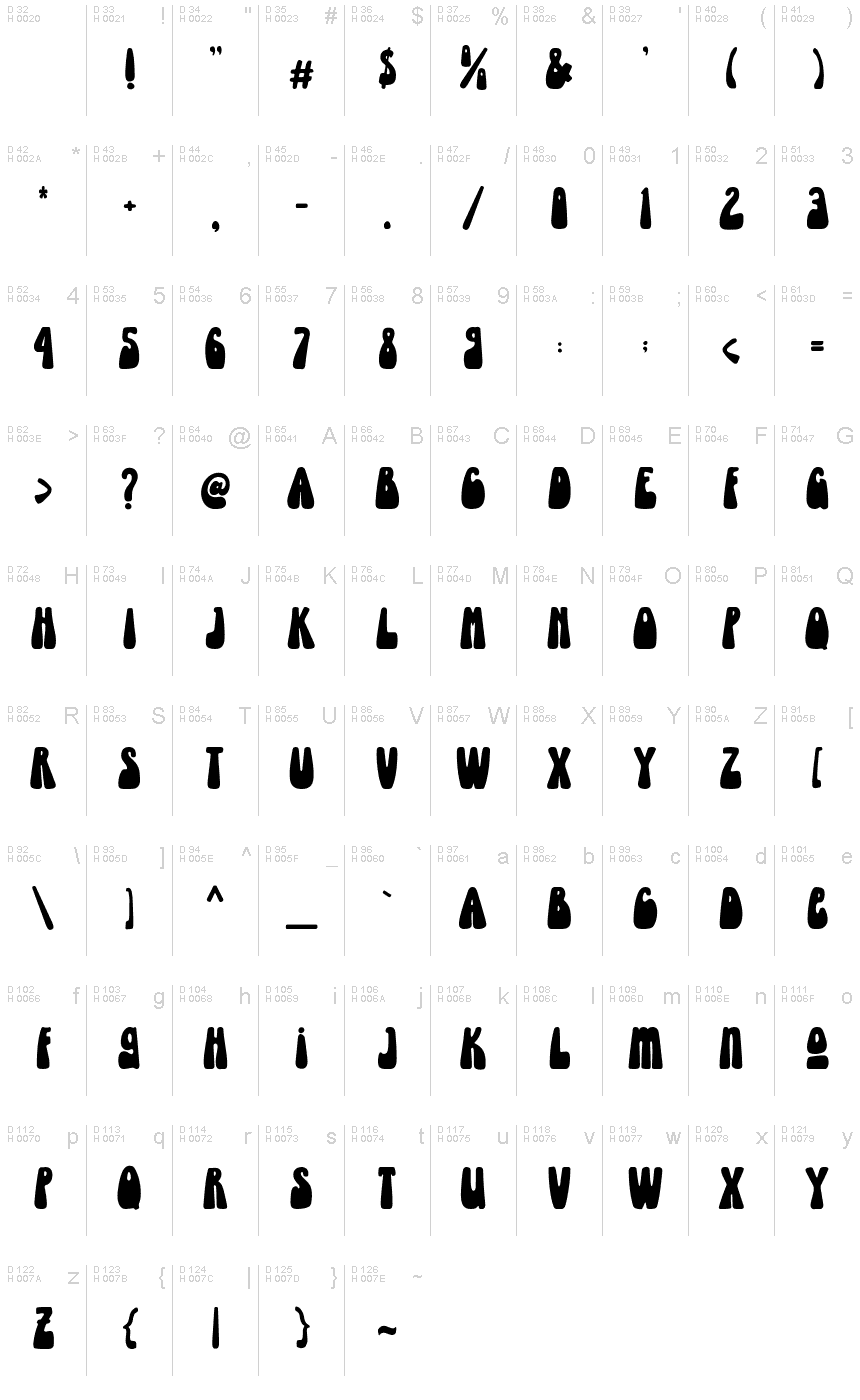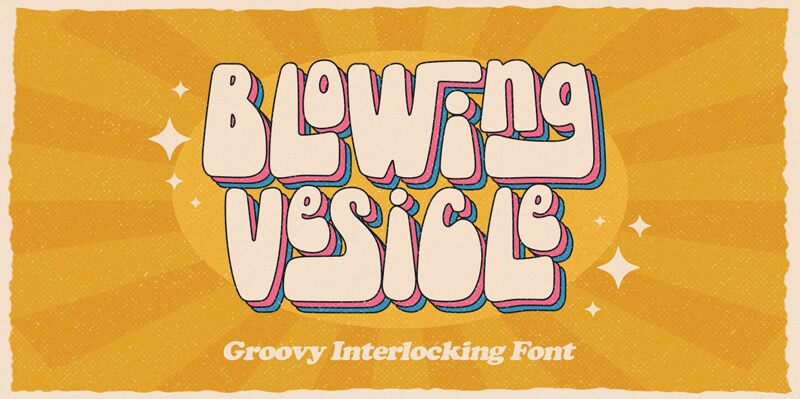
BlowingVesicle-Regular
Blowing Vesicle, designed by Letterhend Studio, is a groovy interlocking display font that exudes boldness and charisma. With its unique interlocking style, this font adds a touch of artistic flair to any project. The extra-condensed width makes it ideal for designs that require a sleek and compact aesthetic.
Whether you're creating retro-inspired logos, eye-catching posters, or edgy album covers, Blowing Vesicle is the perfect choice to make your design stand out from the crowd.
Let your creativity flow with this visually captivating font.